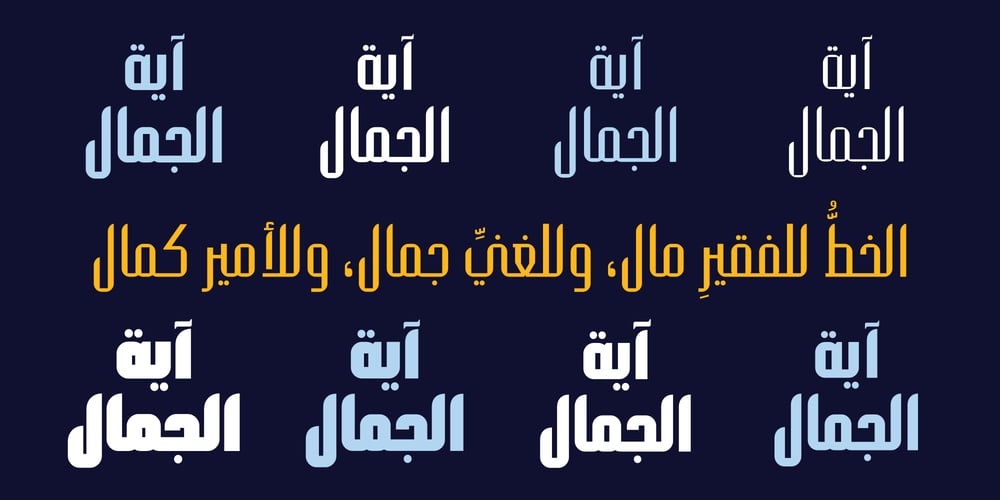
Hasan Aya Font Family was designed by Hasan Abu Afash and published by Hiba Studio. Hasan Aya contains 7 styles and family package options. Hasan Aya is an Arabic display typeface. It is useful for titles and graphic projects The font is based on the simple lines of Kufi calligraphy. This font was created based on the Latin font “Bedrock” which was designed by Corel Corporation in 1992. It supports Arabic, Persian and Urdu.